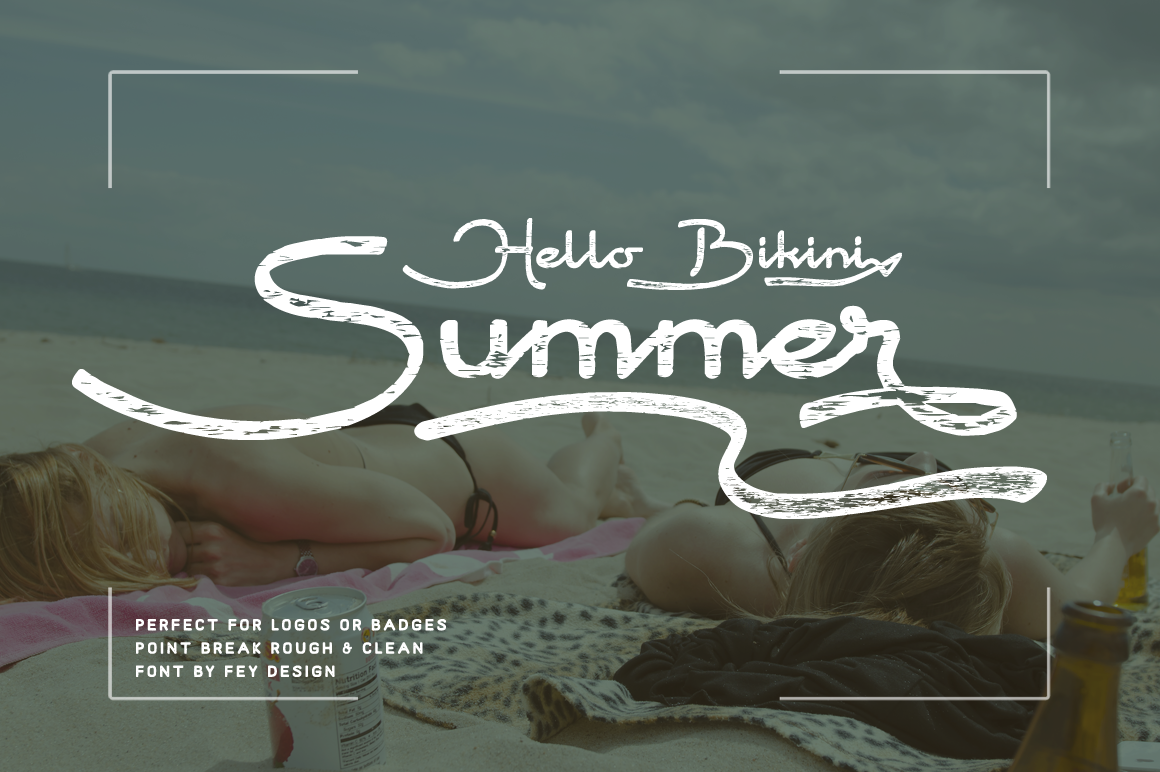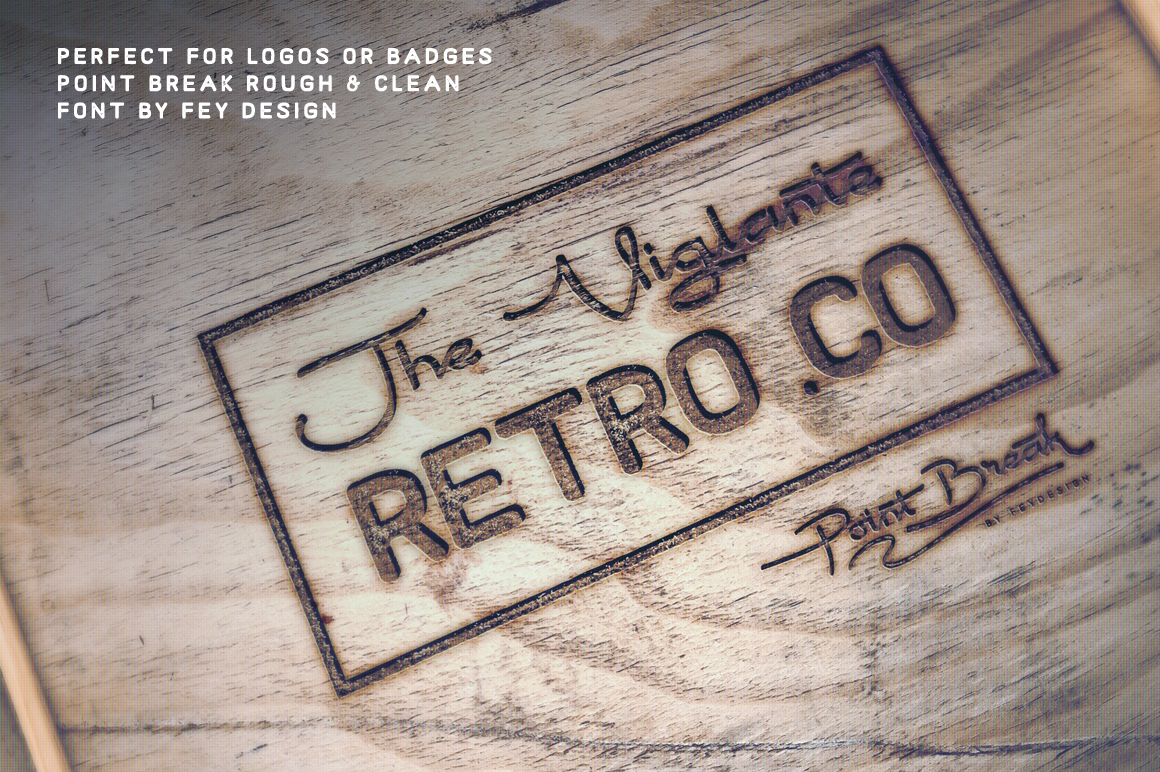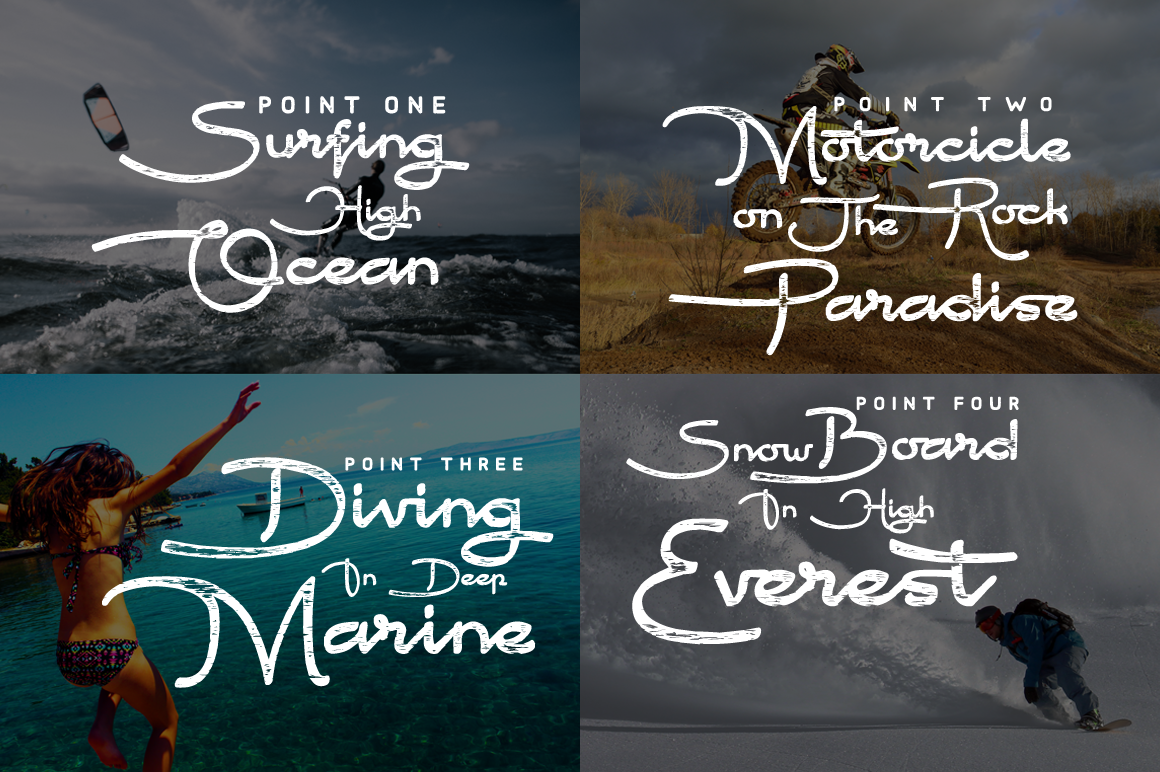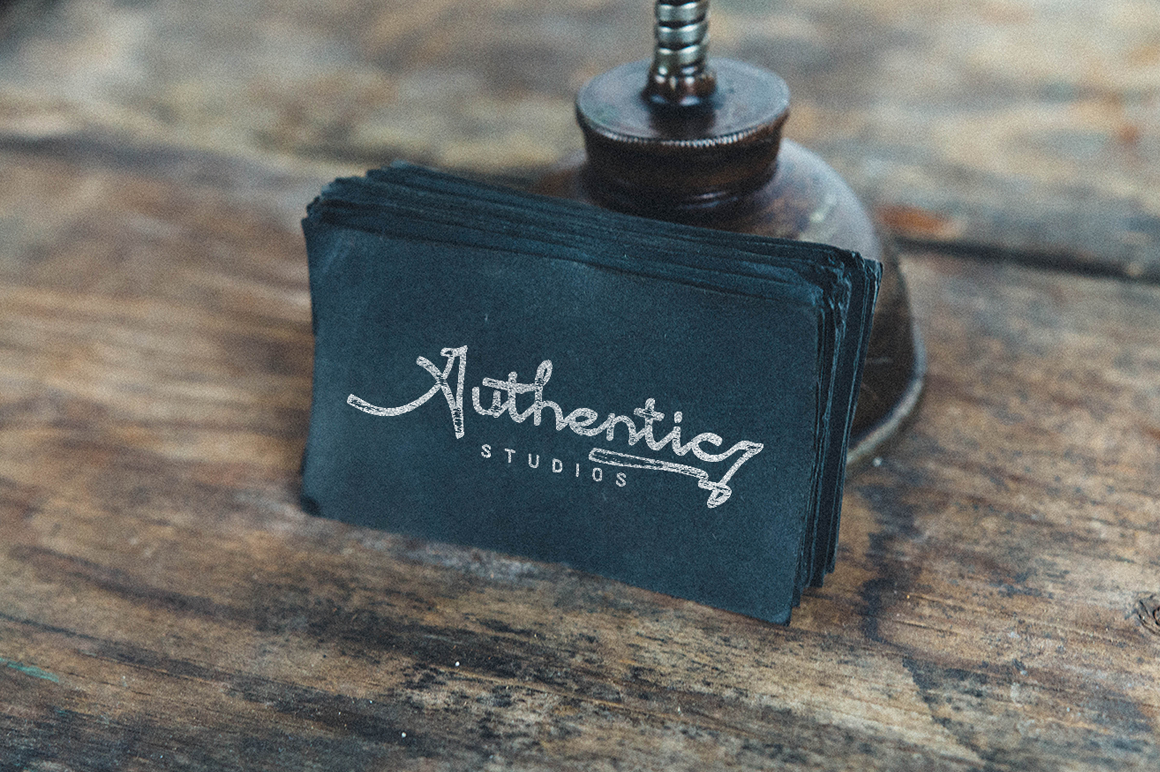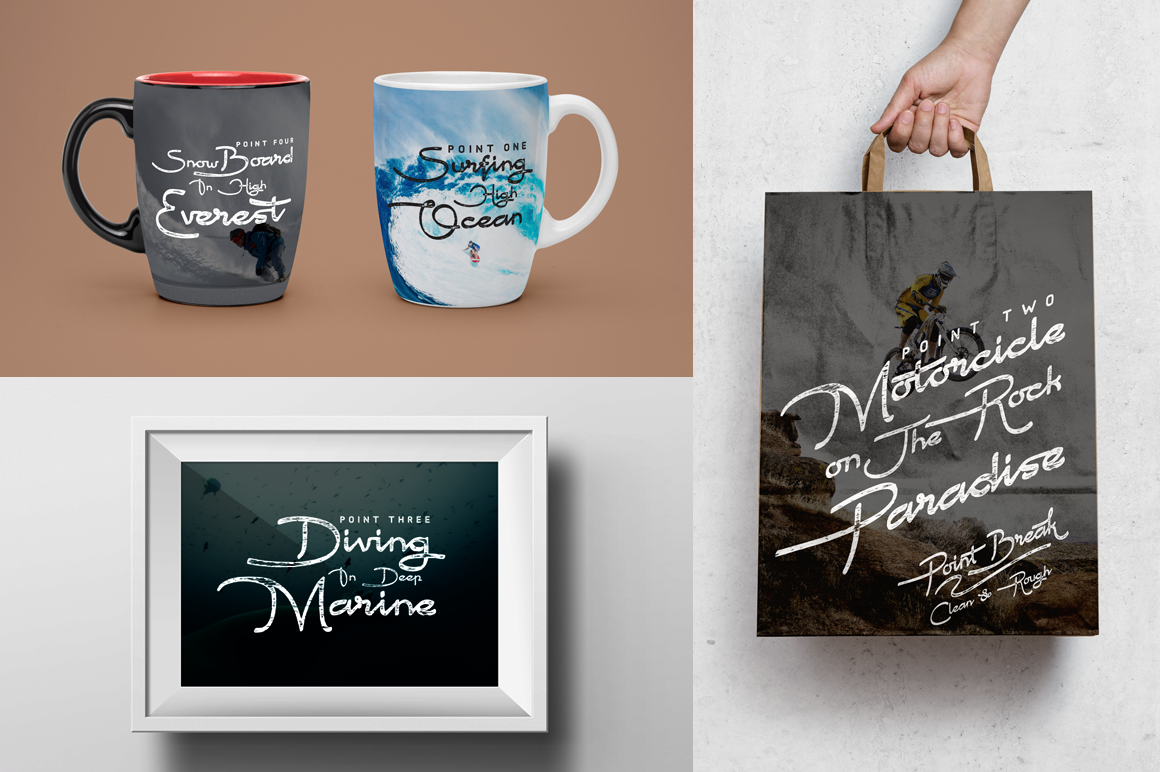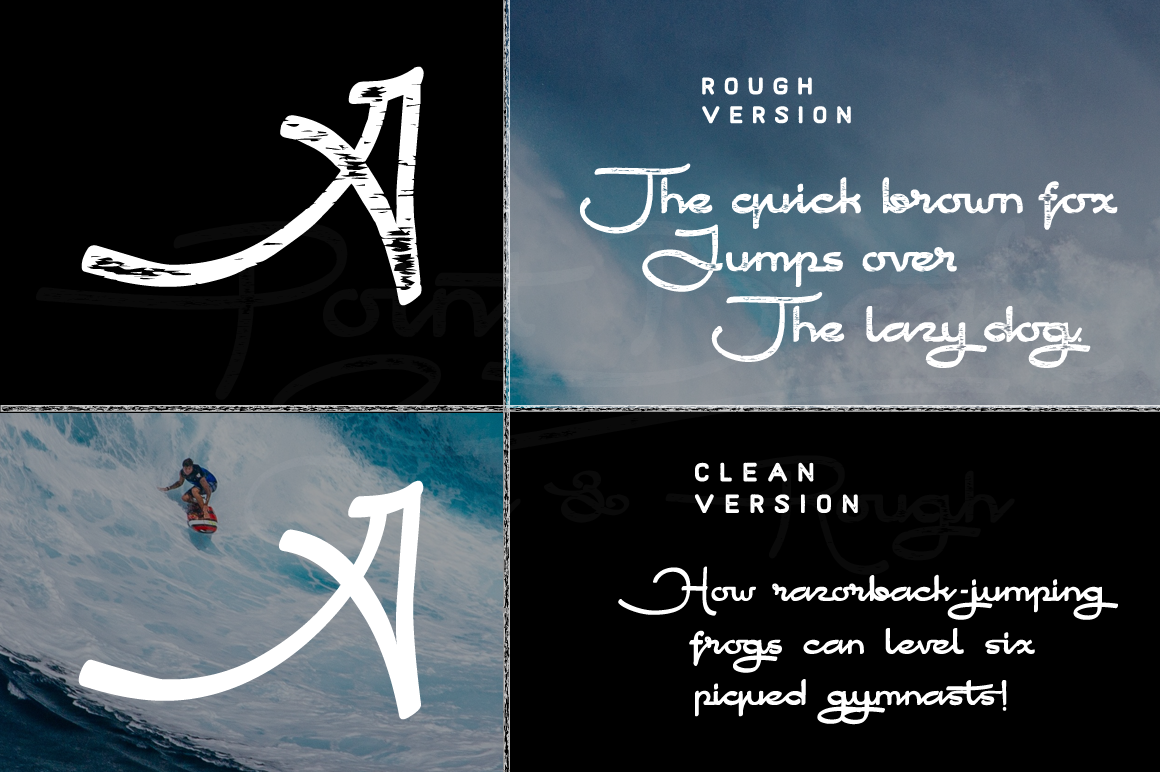
Introduction to Point Break Font
Point Break Brush Font is an authentic calligraphy style with clean and rough options, making it useful for a wide range in both personal and commercial products.
Key Features of Point Break Font
Why Choose Point Break Font?
Point Break Font offers exceptional quality and versatility, making it a valuable addition to your design toolkit. Whether you’re creating for personal projects or commercial use, Point Break Font delivers professional results.